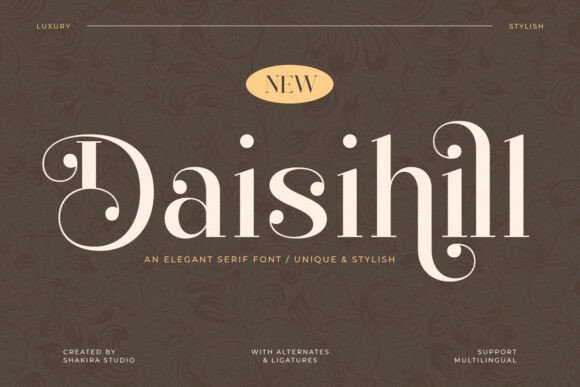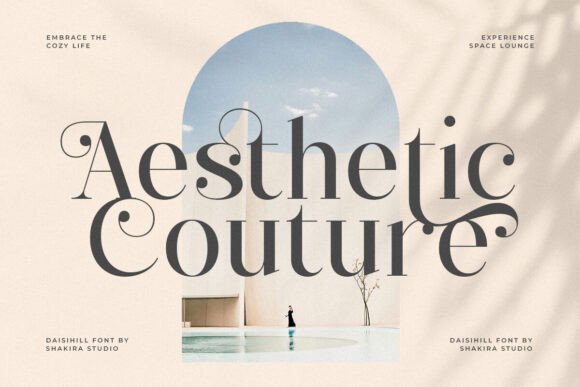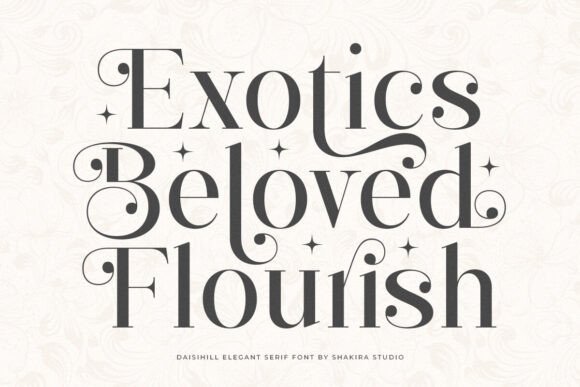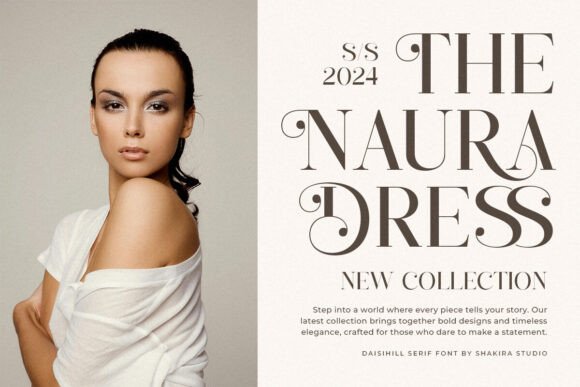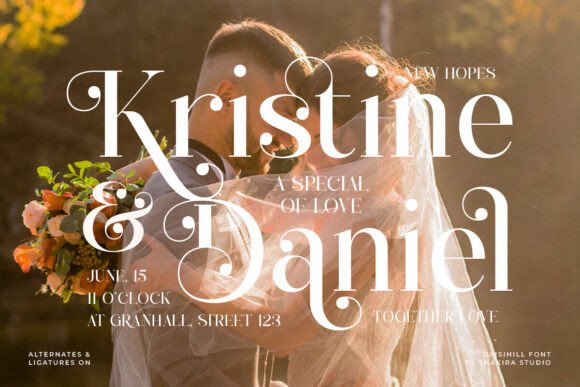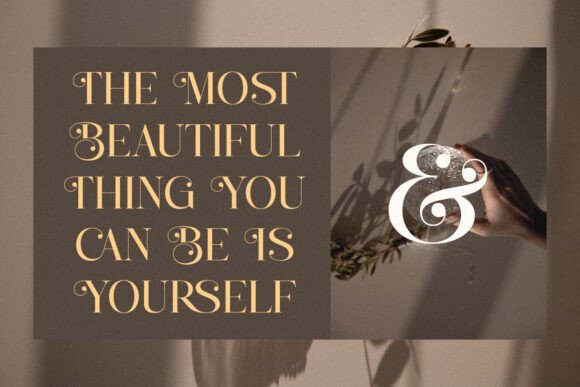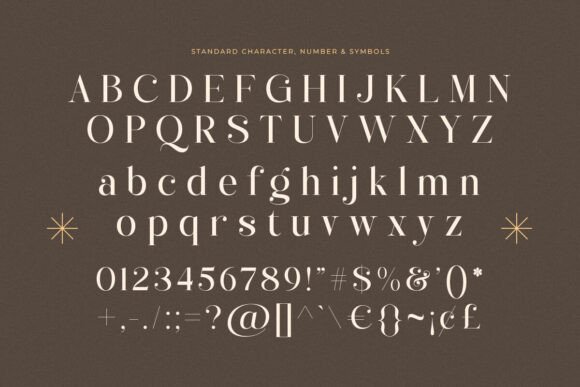
Daisihill Font
Daisihill is an elegant serif font available in both regular and italic styles, designed to add a touch of luxury and refinement to any project. With its thin, stylish character, Daisihill combines classic elegance with modern design through its stylish alternates and ligatures. Perfect for luxury branding, editorial layouts, wedding invitations, and more, this versatile font enhances any creation with its sophisticated and timeless appeal.